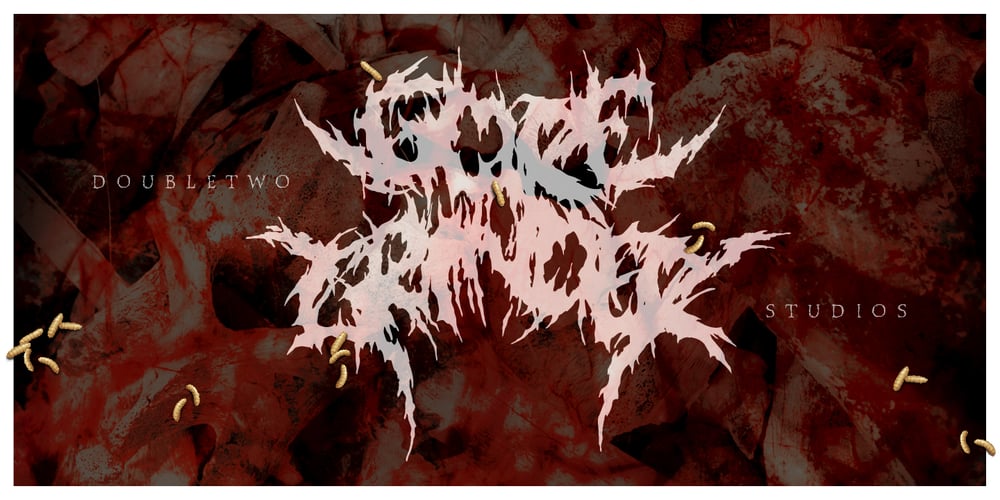
XXII GoreGrinder Font Family was designed by Lecter Johnson and published by Doubletwo Studios. XXII GoreGrinder contains 1 styles and family package options. The face of horror – The GoreGrinder is an extreme logo font designed for extreme music. If you’re in love with deathmetal, grindcore and the horror movie scene, you may find pleasure in using this font. It comes with an upper- and lowercase characterset, numerals, some punctuation and a bunch of drips and stuff used in the genre. Use it in your graphic-editing-application and be creative, play with it and find out what’s possible. Find out more about using it on Behance.net